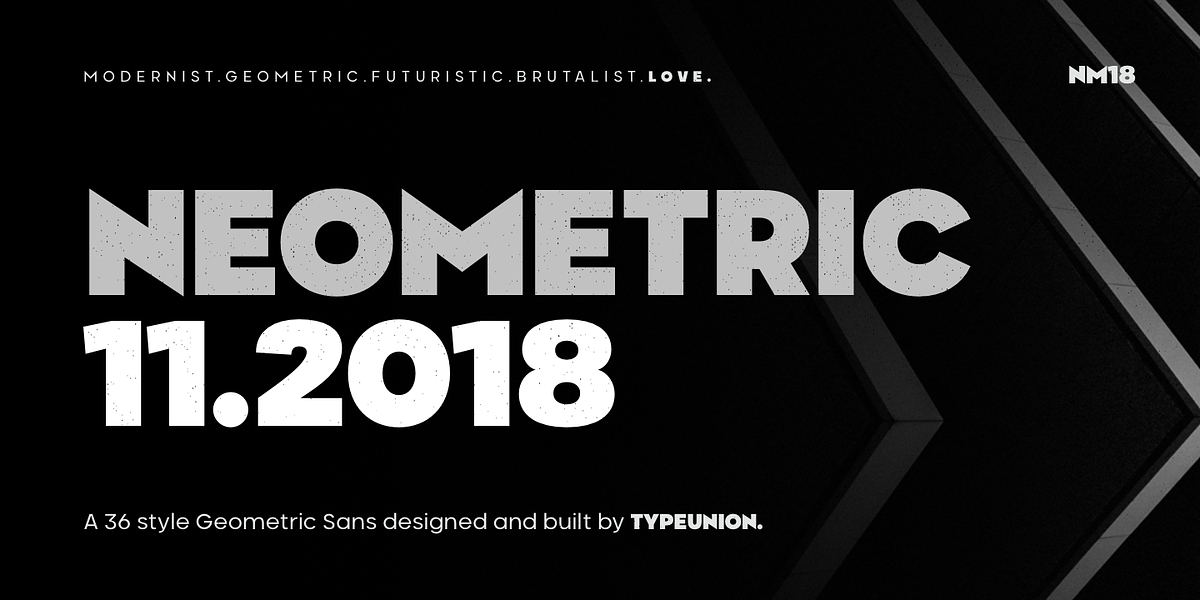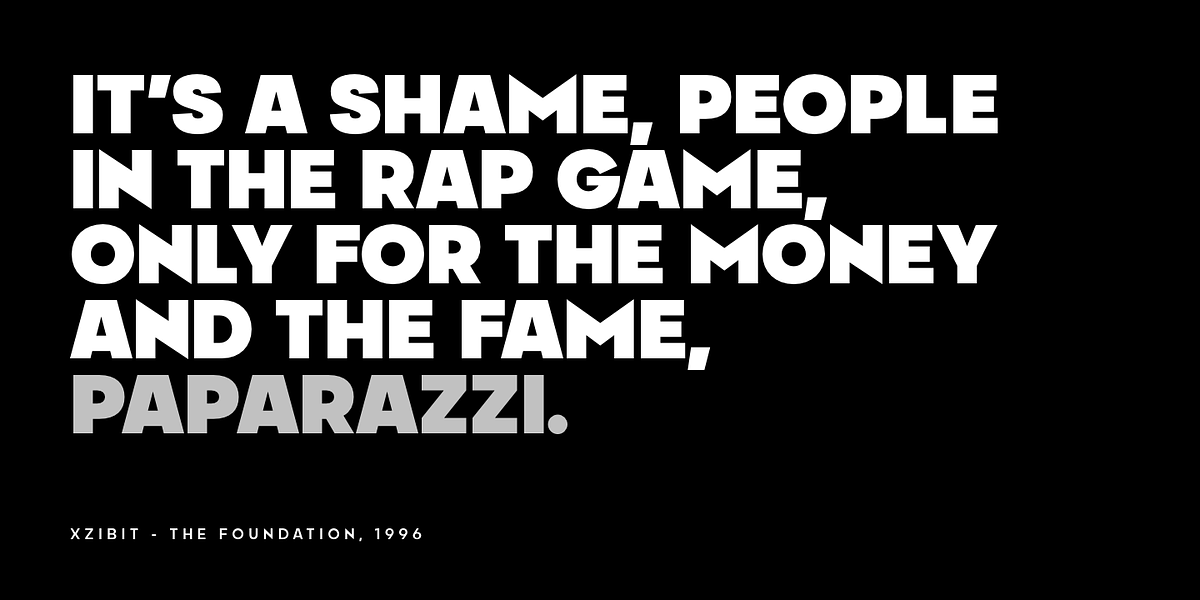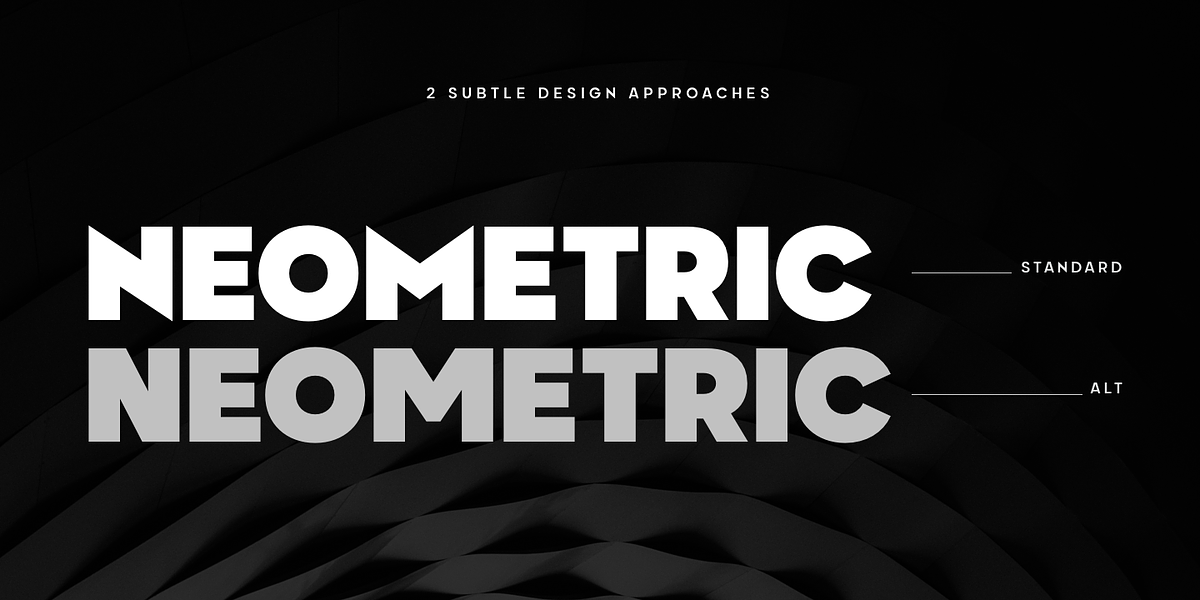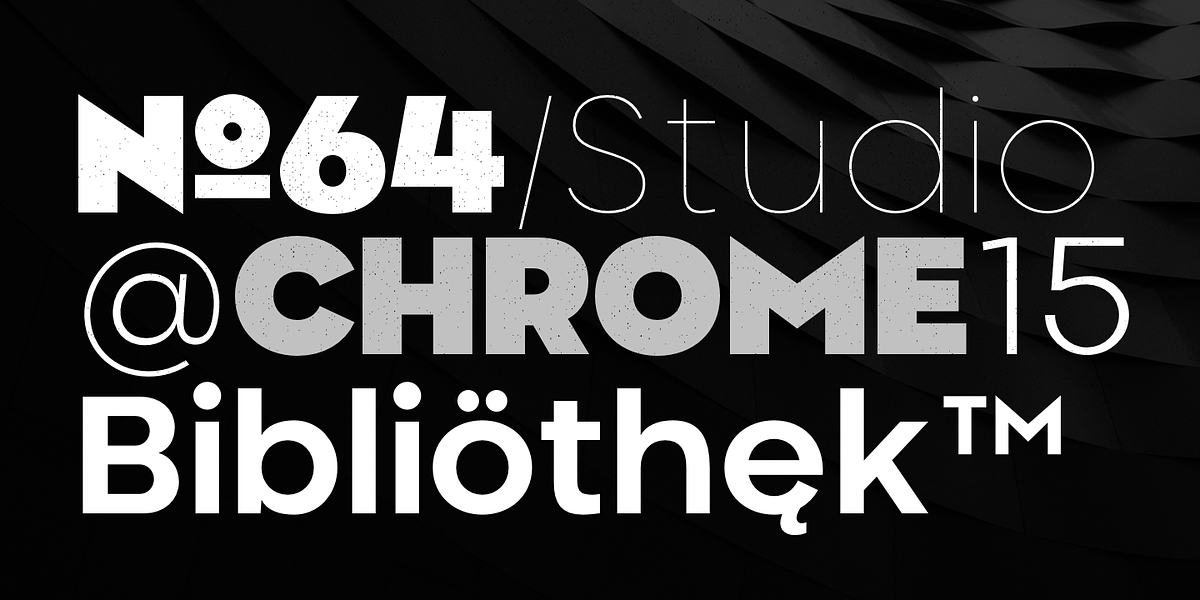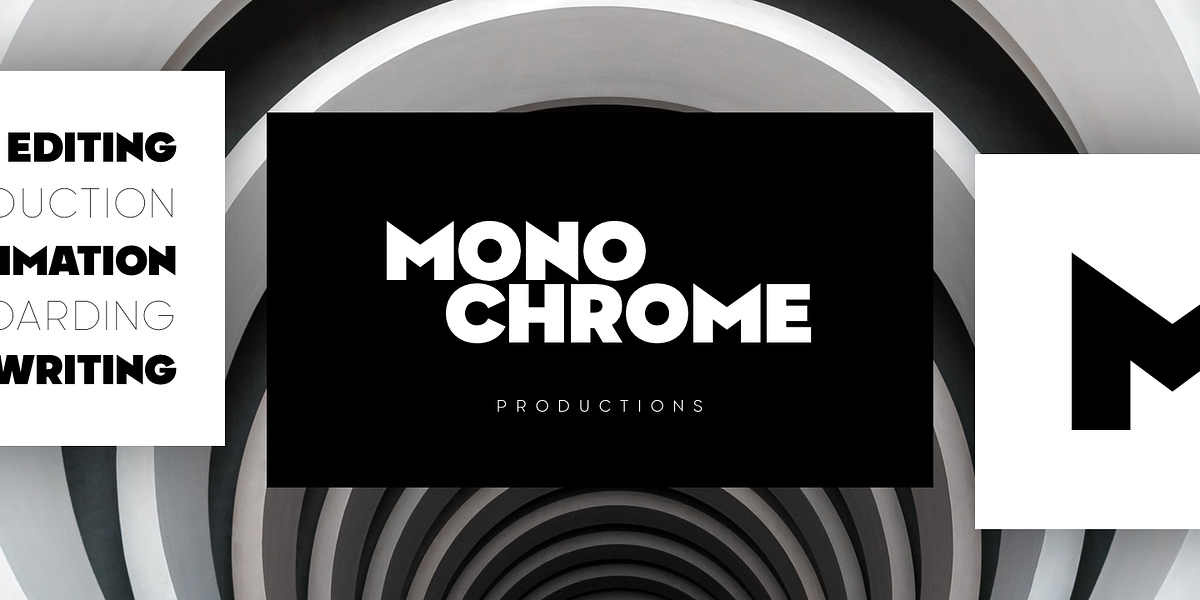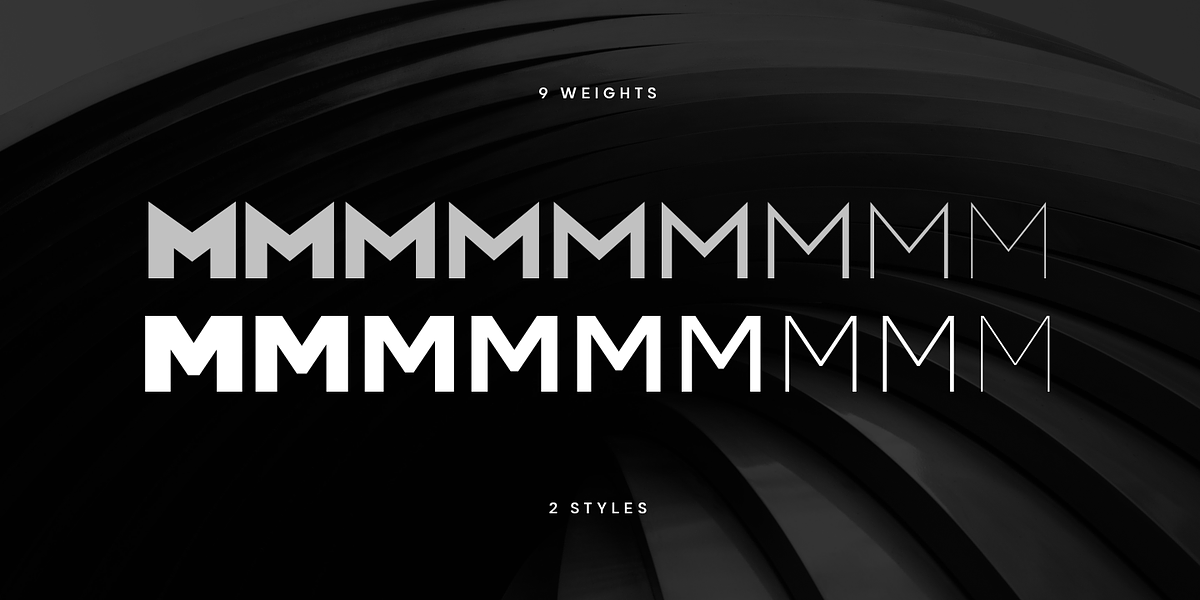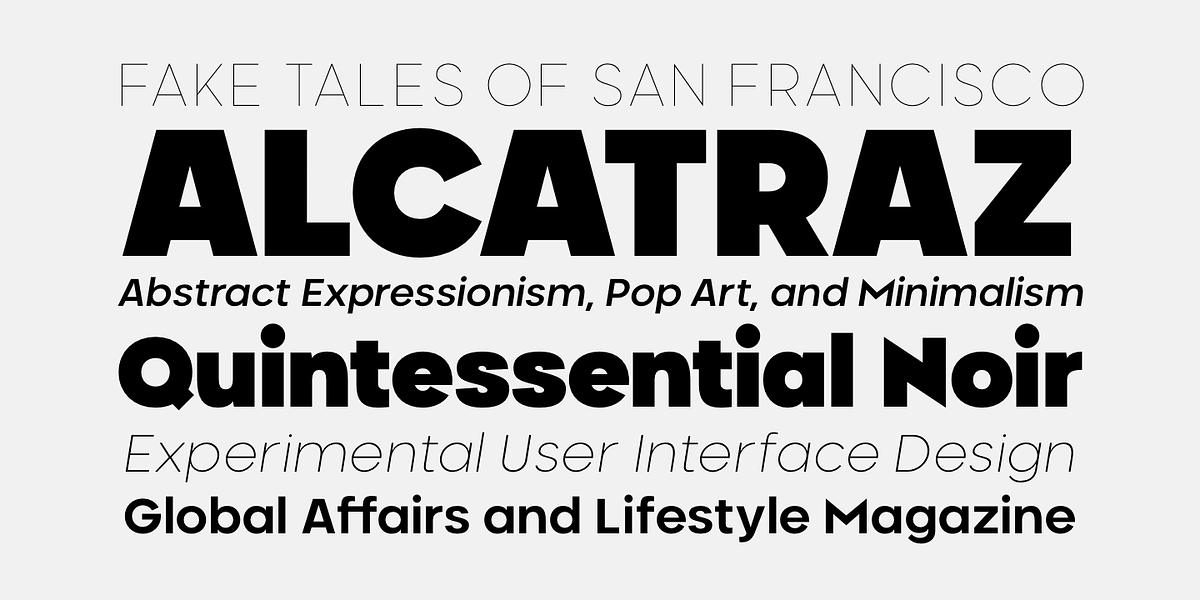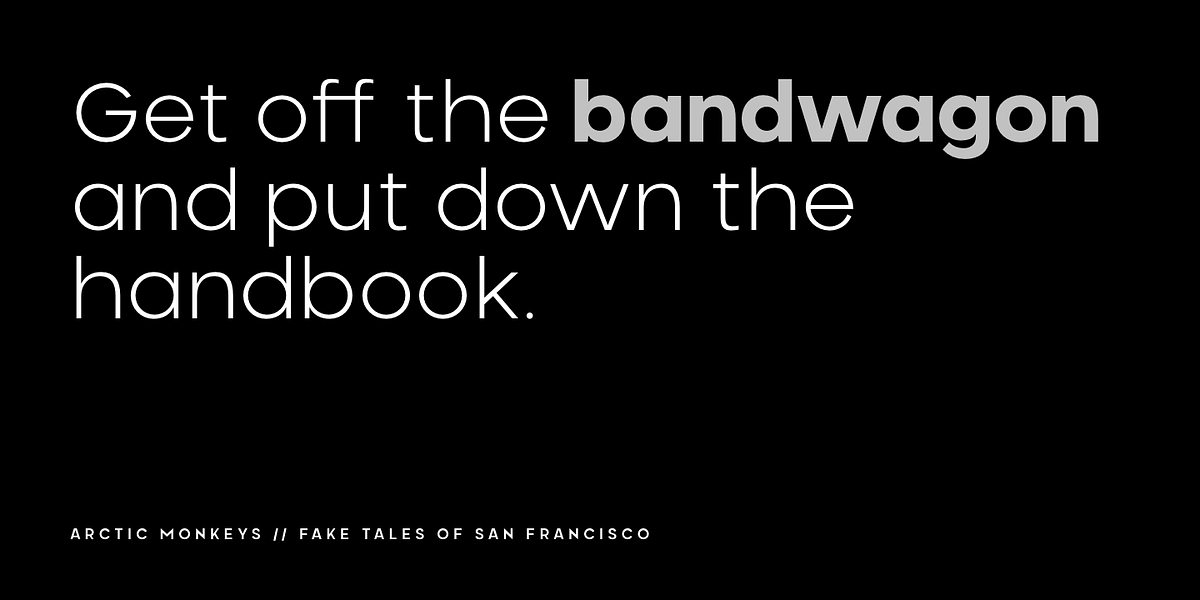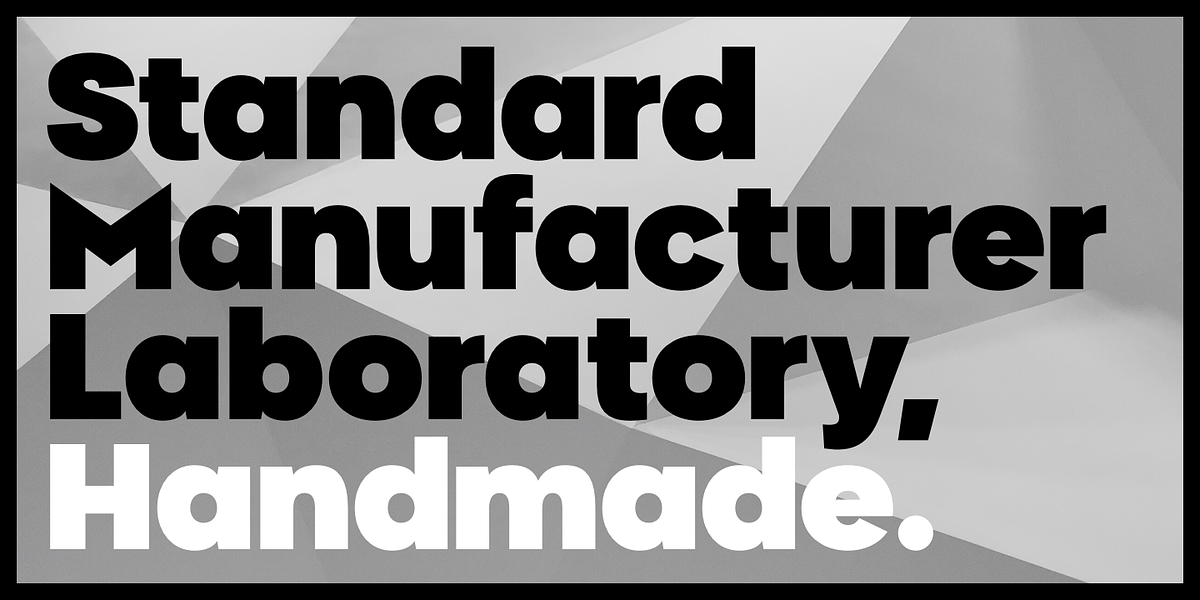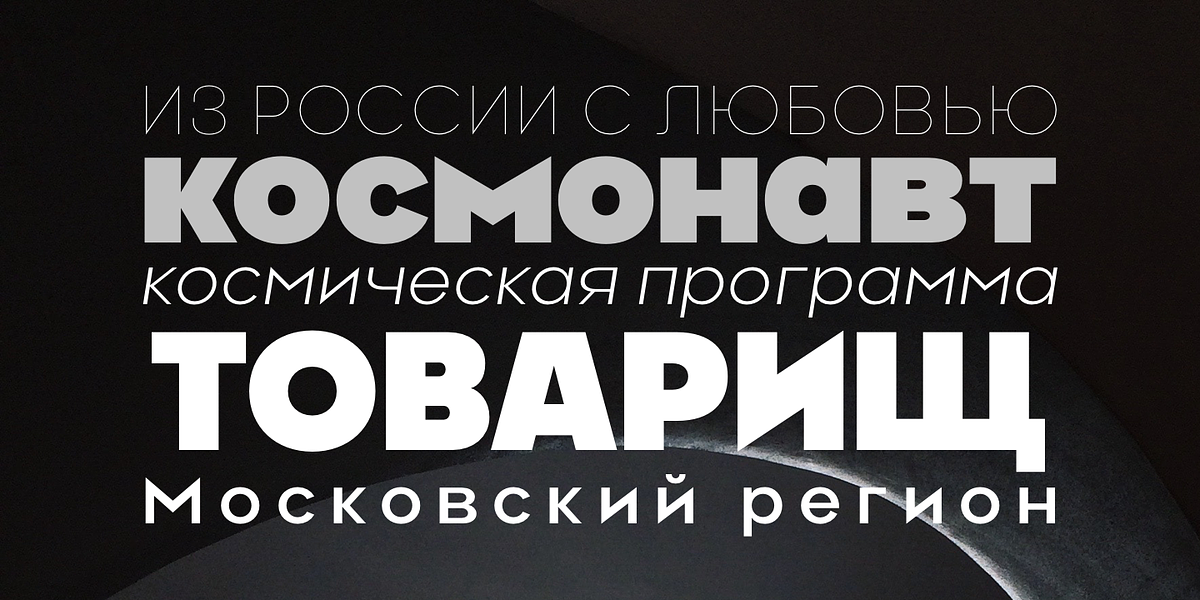
Neometric
Neometric is a contemporary sans serif font designed with a geometric foundation. It distinguishes itself with sharp apex tops on the N and M characters, creating a unique and powerful visual identity. The font family offers extensive language support, including European and basic Cyrillic, making it suitable for a wide range of applications. With 36 styles encompassing nine weights each plus matching italics, Neometric provides versatility for both branding and digital or print projects.